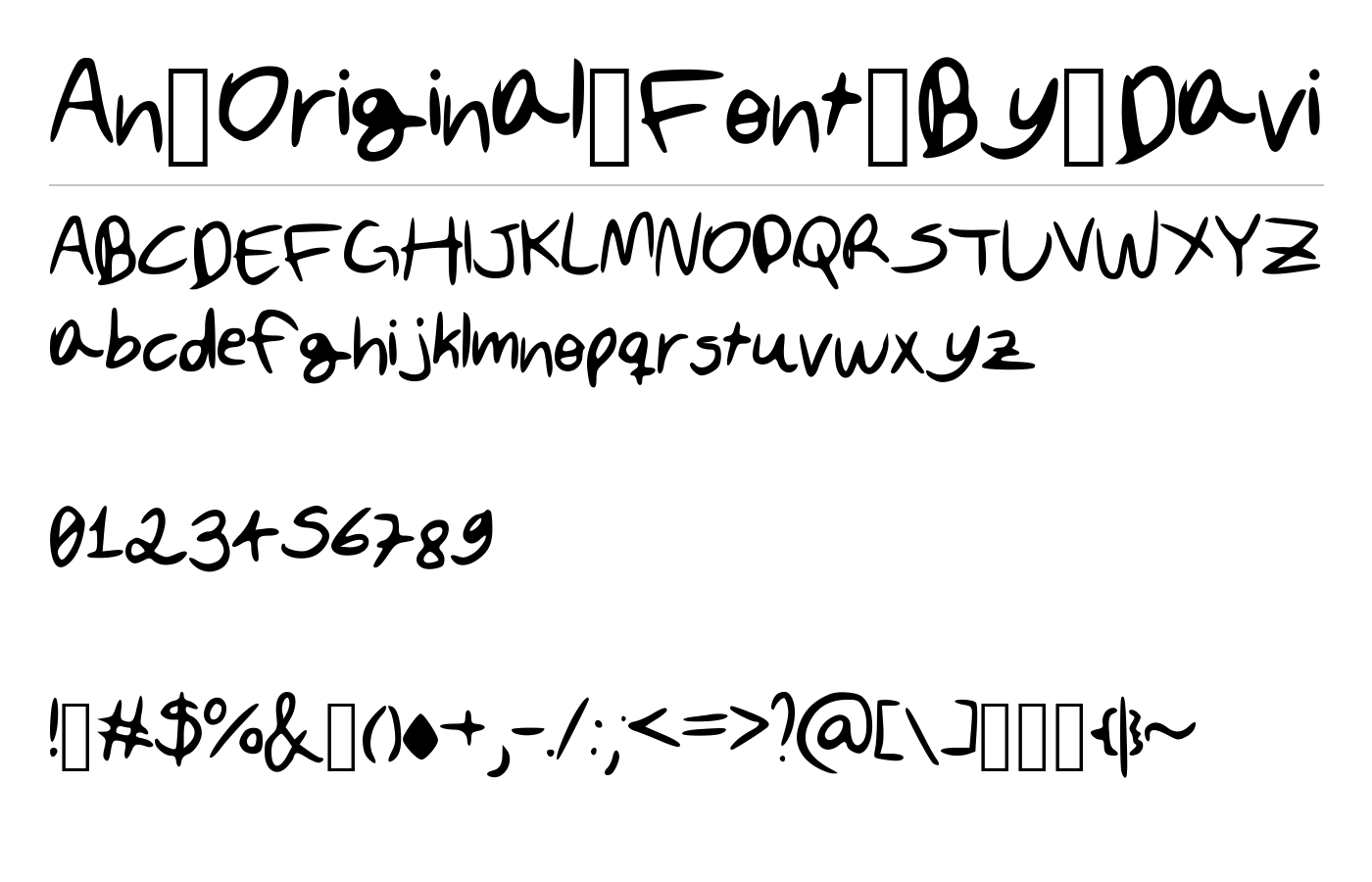
An_Original_Font_By_Davi is a playful, casual handwritten sans serif font featuring irregular, organic strokes that resemble natural handwriting. Its light to medium weight and open, airy spacing give it a friendly and informal feel, making it ideal for creative projects, casual branding, or personal invitations where a warm, approachable tone is desired. This font works best in headlines, logos, and informal editorial contexts that benefit from a personal, human touch.
An_Original_Font_By_Davi Font
About An_Original_Font_By_Davi Font
| Font family | An_Original_Font_By_Davi Font |